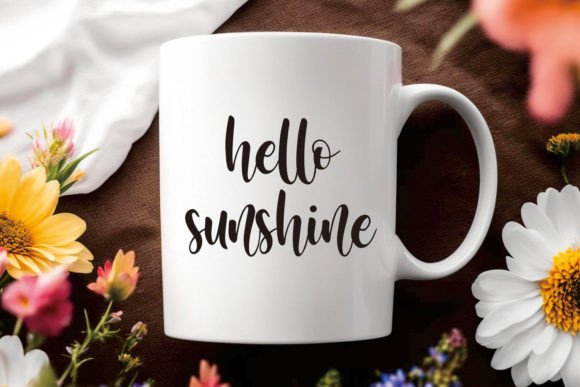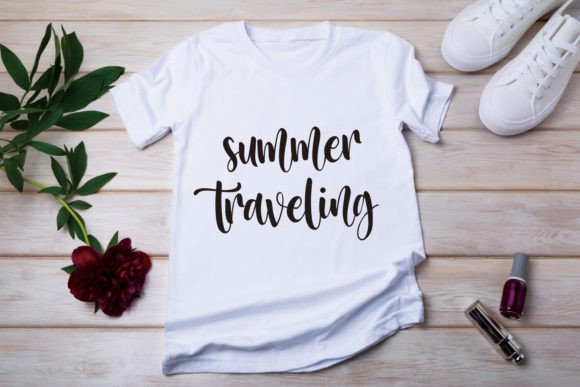
Buttermilk Font
Buttermilk font embodies the essence of a whimsical and charming handwritten script, perfect for evoking the spirit of holidays, embroideries, Thanksgiving, crafts, Christmas, and craft lettering themes. Its graceful strokes and elegant curves exude a sense of warmth and nostalgia, reminiscent of cozy celebrations and creative endeavors.With its fluid and playful nature, Buttermilk font brings a delightful touch to any project related to festive occasions. The script’s graceful yet informal style captures the essence of holiday cheer, infusing a sense of handmade artistry into designs. Whether used for creating personalized greeting cards, festive decorations, or artisanal crafts, this font adds a distinctive flair, making each creation feel heartfelt and authentic.Buttermilk font’s versatile and intricate design lends itself beautifully to decorative purposes, making it a go-to choice for anyone seeking a blend of elegance and approachability in their holiday-themed designs. Its charmingly crafted letters reflect the joy and spirit of the season, inviting creativity and celebration into every stroke.